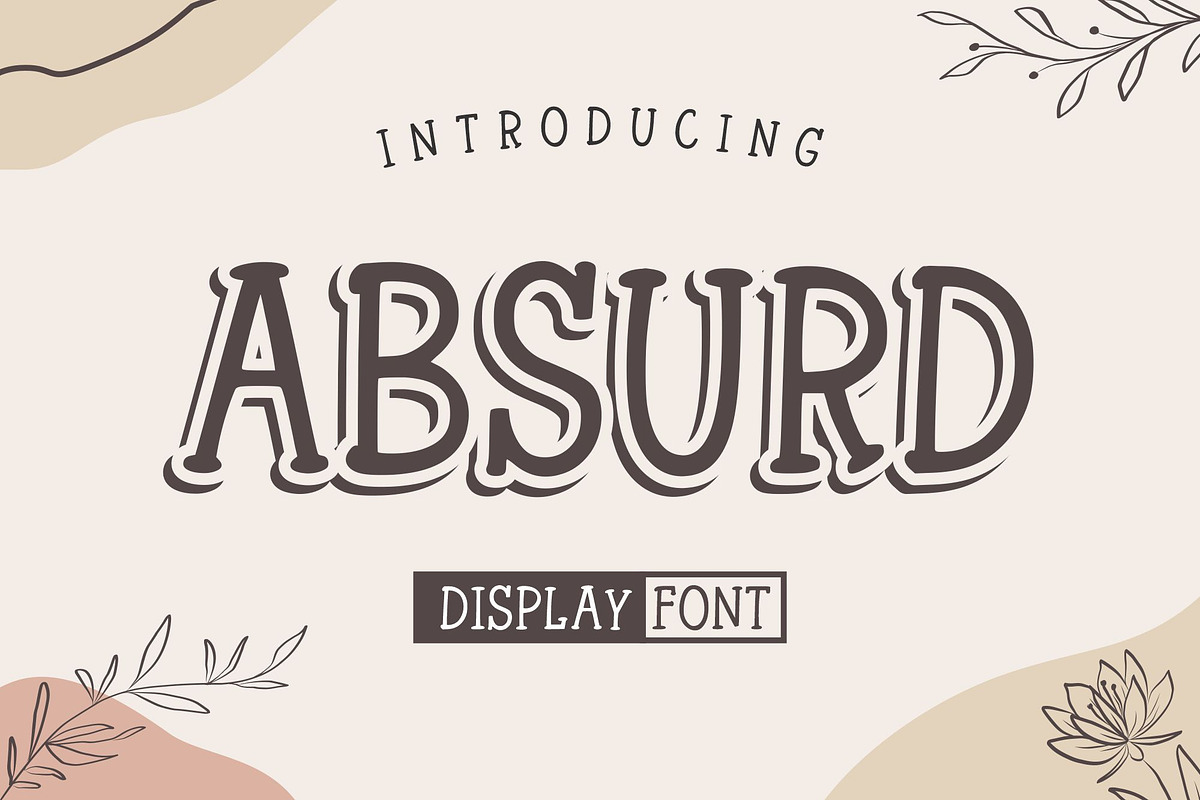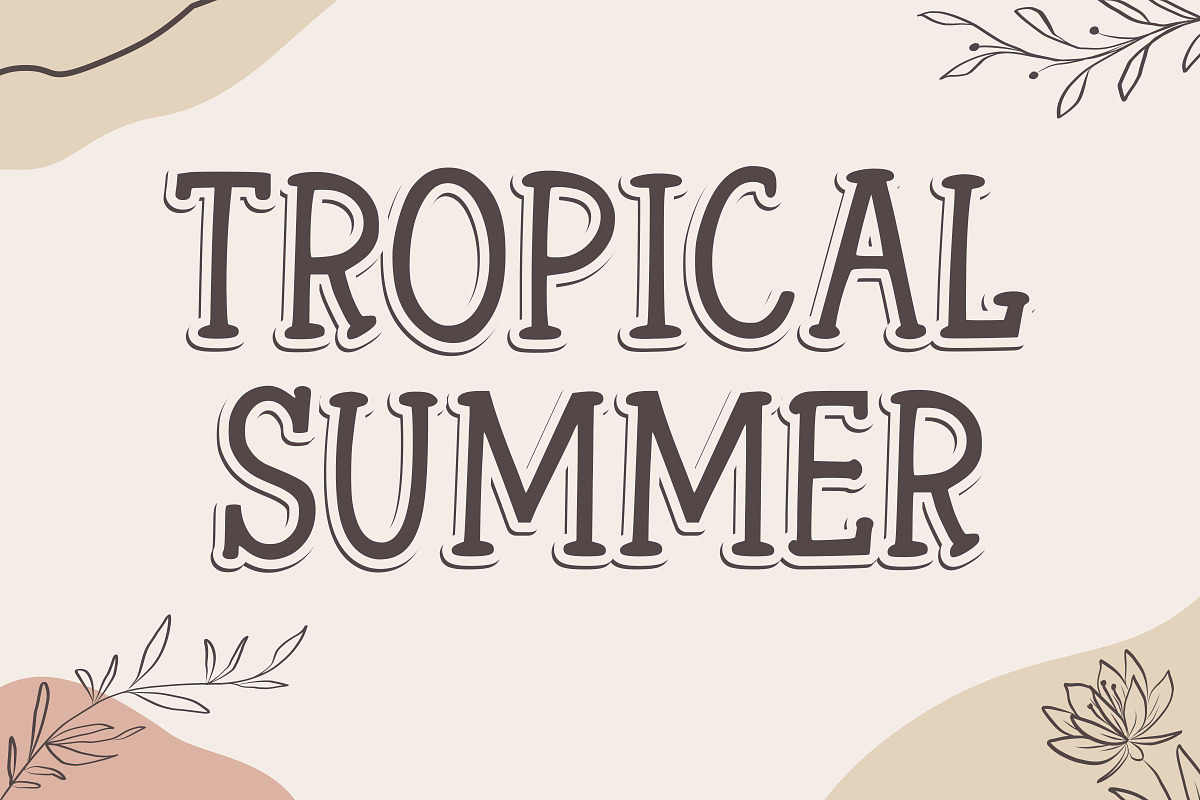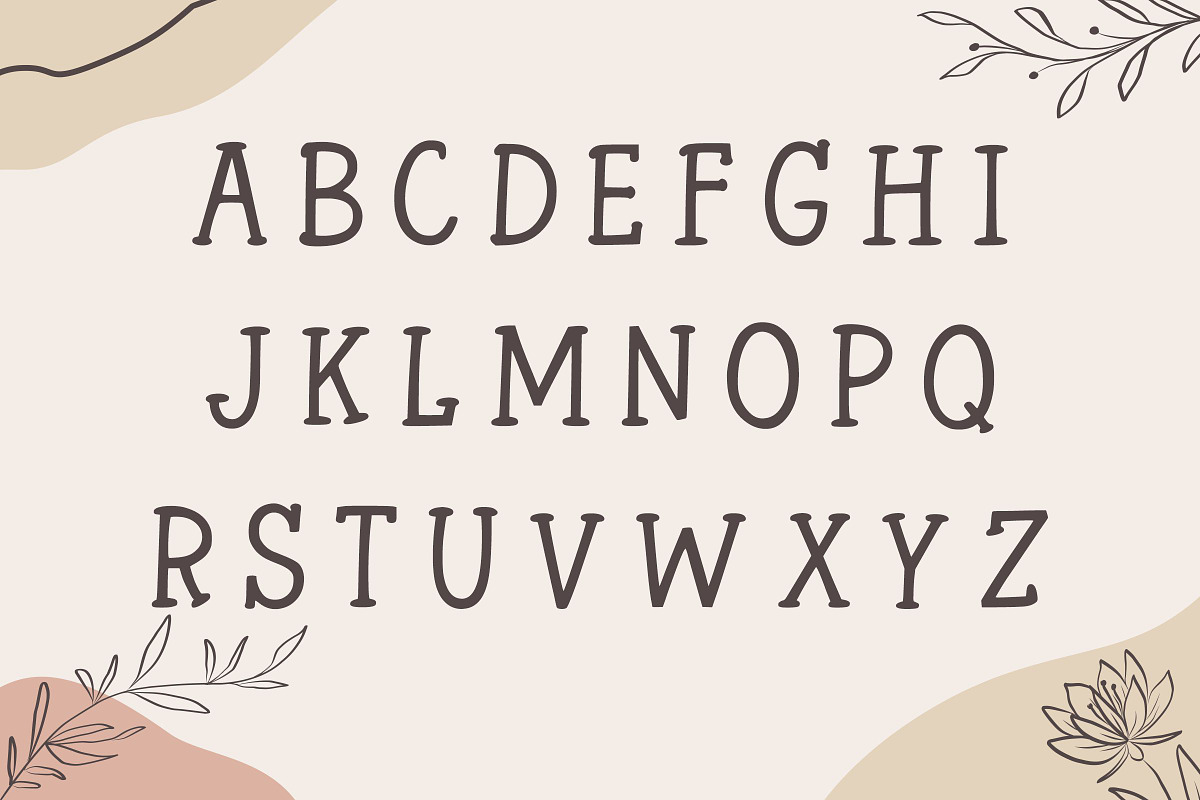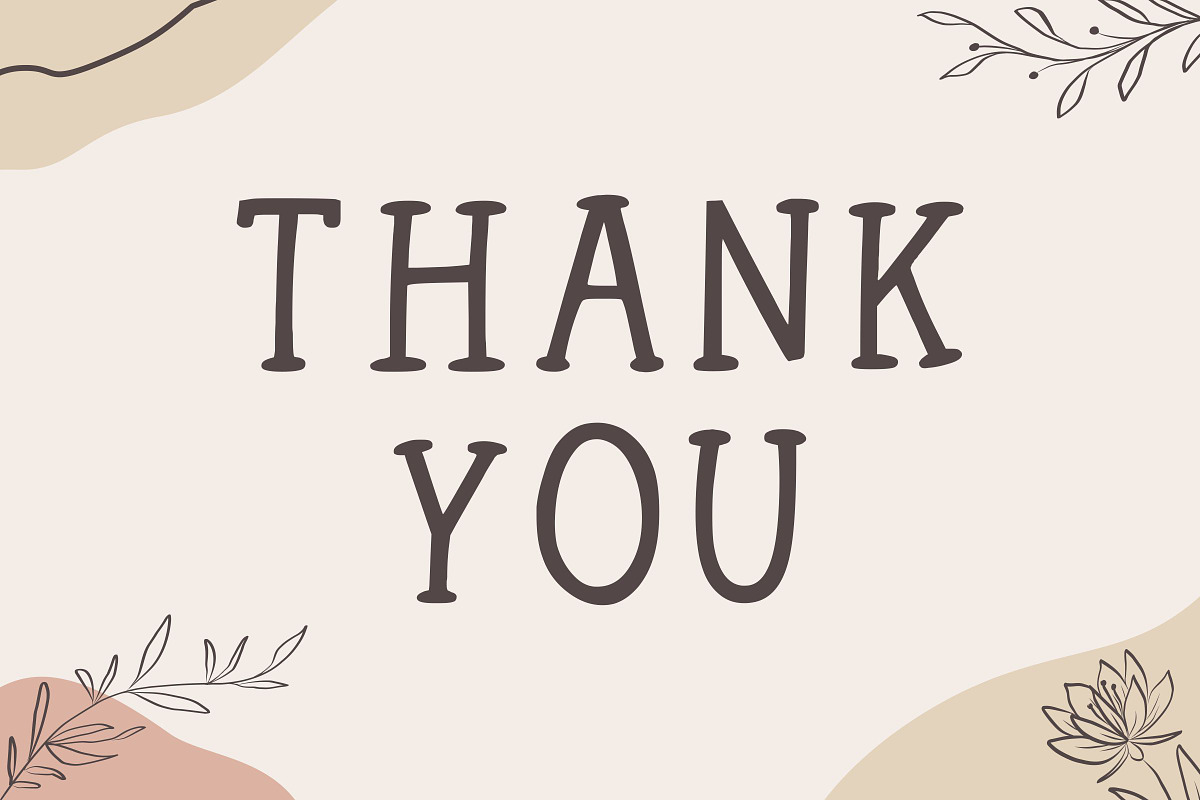
Absurd
Absurd is a classic display font, that has a sweet character. Whether you use it for cartoon-related designs, children’s games, or just any creation that requires a lovely touch, this font will be an amazing choice.